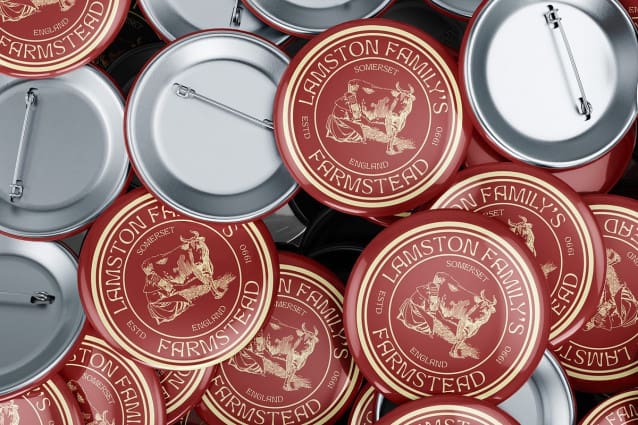
Neckyn Rough Font
Neckyn Rough Font is a modern sans serif display font that stands out with its quirky design and fun characters, making it a delightful choice for creative projects. The unconventional shapes and playful letterforms catch the eye, ensuring that your message resonates with a sense of whimsy and joy.
Rough Effect for Added Appeal The rough effect wrapped around Neckyn Rough enhances its visual texture, adding a layer of depth and character. This unique finish suggests creativity and artistic flair, making it an excellent fit for designs that aim to capture attention and evoke a cheerful atmosphere. The combination of its playful shapes and textured appearance results in a font that feels both inviting and engaging.
Ideal for Cheerful Design Projects Neckyn Rough is particularly well-suited for a variety of design projects that prioritize visual appeal and striking impressions. Whether you’re creating vibrant posters, playful logos, or eye-catching product packaging, this font delivers a distinctive personality that can elevate your work. Its cheerful vibe is perfect for projects aimed at a youthful audience or those seeking to convey a sense of fun and lightheartedness.